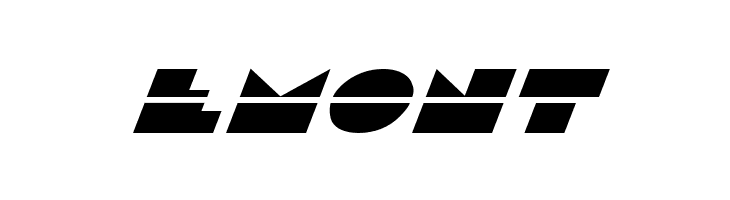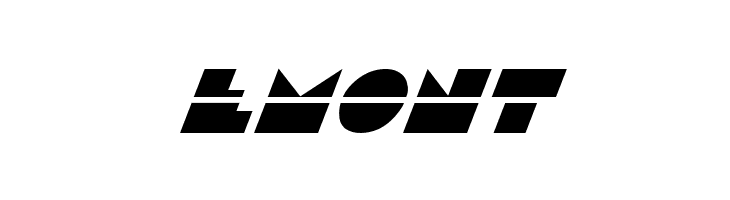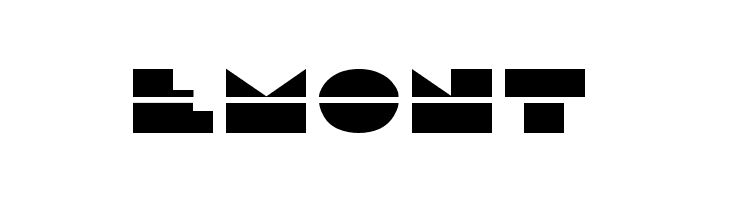
• Disco Duck Expanded
A bold, geometric font with angular shapes and a futuristic style.
• Disco Duck ExpItalic
A bold, italic, geometric font with a futuristic and playful style.
• Disco Duck Italic
A bold, geometric italic font with sharp angles and dynamic style.
• DiscoMonkey
A bold, geometric font with rounded edges and a playful style.
• discontinuo tfb
A playful, dotted outline font with a whimsical, hand-drawn style.
• Discotechia
A bold, slanted font with a futuristic and dynamic style.
• Discotechia 3D
A bold, 3D futuristic font with geometric and angular design.
• Discotechia Academy
A bold, futuristic font with a three-dimensional outlined style and dynamic slant.
• Discotechia Bold
A bold, futuristic font with slanted, geometric characters.
• Discotechia Condensed
A modern, condensed font with a dynamic, futuristic style.
• Discotechia Expanded
A sleek, futuristic font with a dynamic slant and geometric shapes.
• Discotechia Gradient
A bold, futuristic font with a striped gradient effect and slanted orientation.
• Discotechia Halftone
A bold, futuristic font with a halftone effect and angular design.
• Discotechia Leftalic
A bold, left-leaning geometric font with a modern and dynamic style.
• Discotechia Outline
A bold, geometric outline font with a modern and futuristic style.
• Discotechia Rotated
A dynamic, slanted font with a futuristic and geometric style.
• Discotechia Semi-Italic
A modern, semi-italic font with a bold, geometric style.
• Discotechia Straight
A geometric, futuristic font with straight lines and angular shapes.
• Discotechia Super-Italic
A dynamic, modern italic font with a sleek, angular design.
• Discoteque St
( Fonts by Southype )
A bold, outlined font with a retro, disco-inspired design.
• DiscoverBats